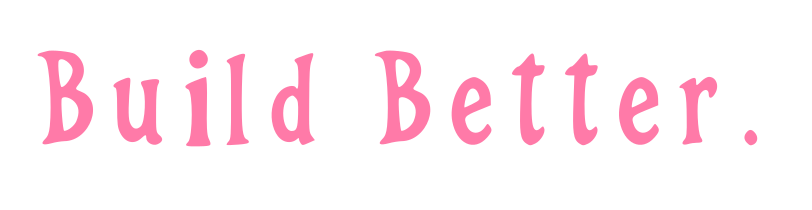
Sneekgob
Bold curled fantasy display font with playful gothic bite
Sneekgob held its shape in our poster comps and still felt distinct in small lockups.
The spacing and proportions landed fast. It gave the concept a finished look without extra tuning.
Great personality, strong readability, and easy to drop into campaign mockups.
The texture has enough bite for headlines while staying clean on packaging panels.
It made the title treatment feel custom right away. The numbers and caps were especially useful.
I used it across badges, social tiles, and a landing page header. It stayed consistent everywhere.